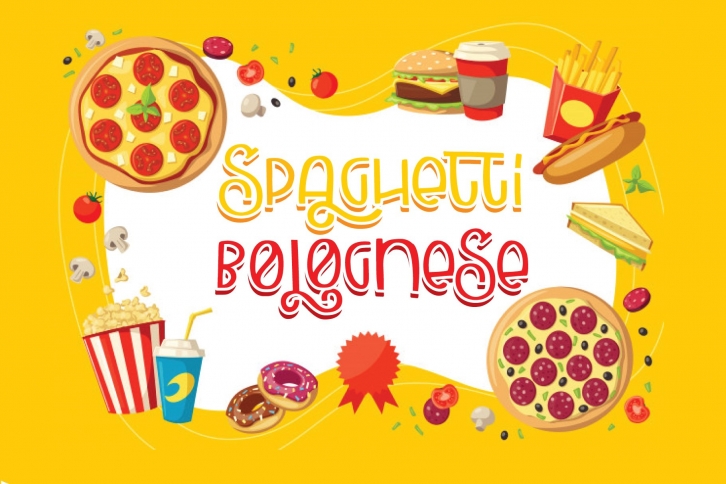
carbonara is a great font that was designed by Goodigital13. Imagine the amount of combinations you can create using this font! The archive is 21.45 MB and it was released on December 11, 2020. carbonara looks beautiful on wedding invitations, greeting cards, logos, posters, labels, t-shirt designs, logos, business cards and is perfect for use in ink or watercolor works, fashion, magazines, packaging and food menus, children's books and more!